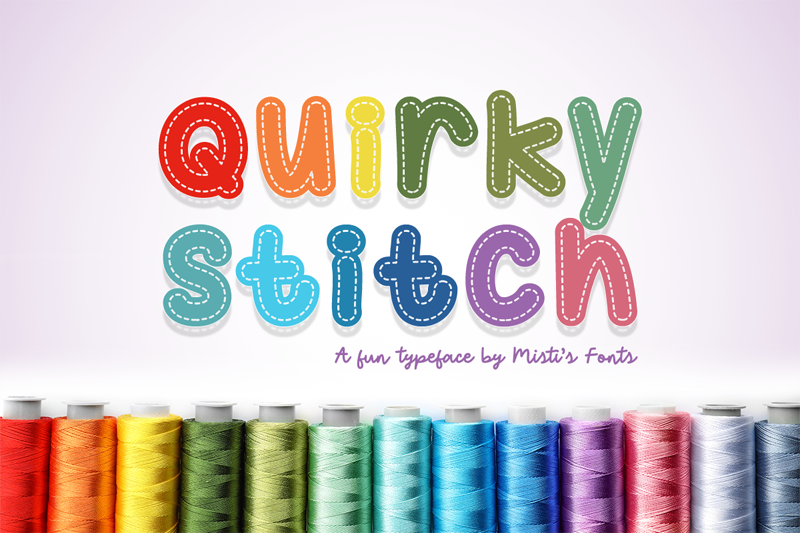
Font name: | Quirky Stitch |
Quirky Stitch is a fun chunky typeface lined with a stitching pattern. It is perfect for Etsy shop logos, website banners, kids projects, sublimation, personalized items and so much more! Terms Of Use and Commercial Licensing: https://mistifonts.com/quirky-stitch/ |